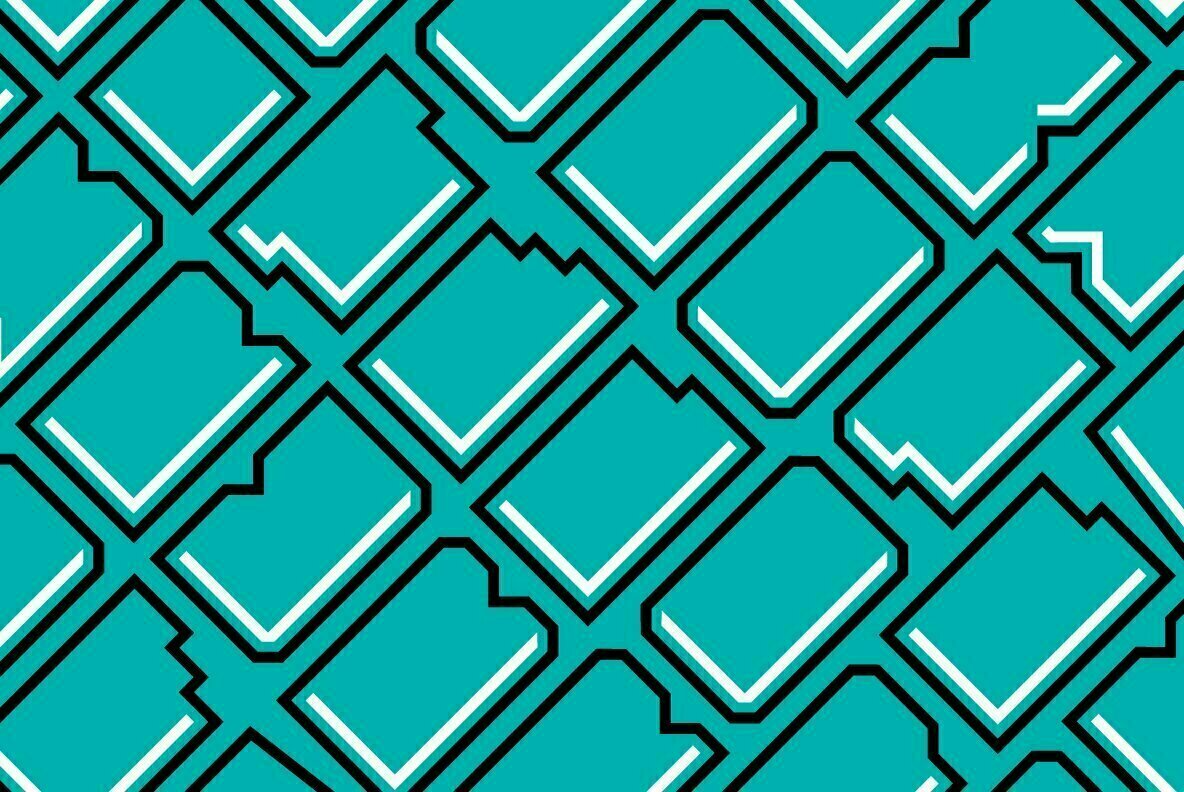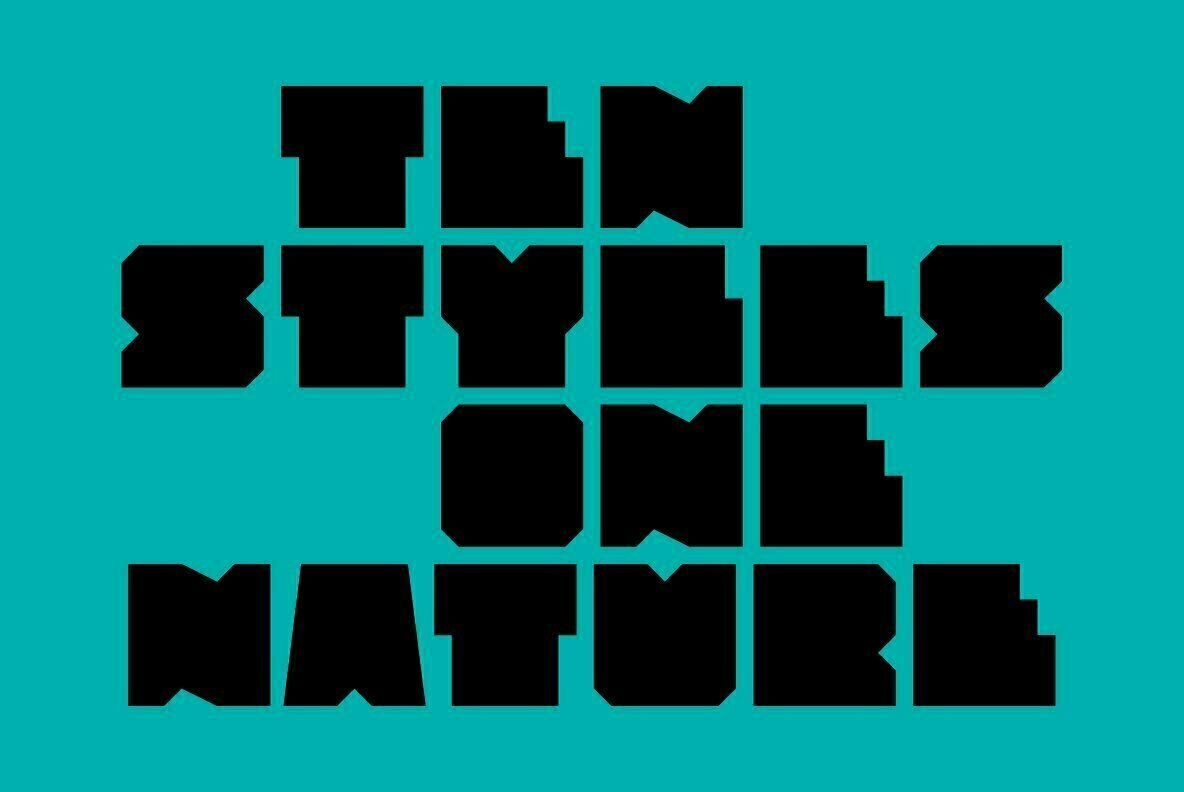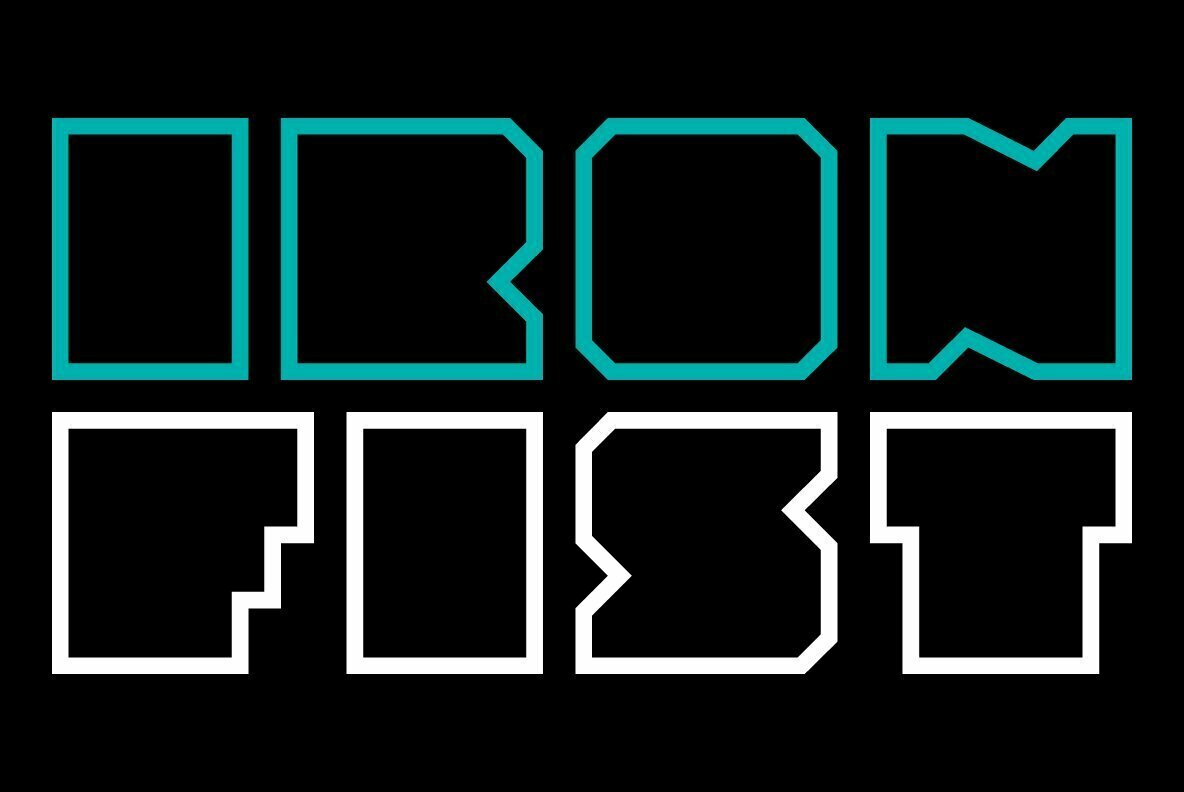
Solida Font
Solida font family has been designed for Graviton Font Foundry by Pablo Balcells in 2012. It is display typeface with a geometric angular look.
Solida consists of 10 styles.